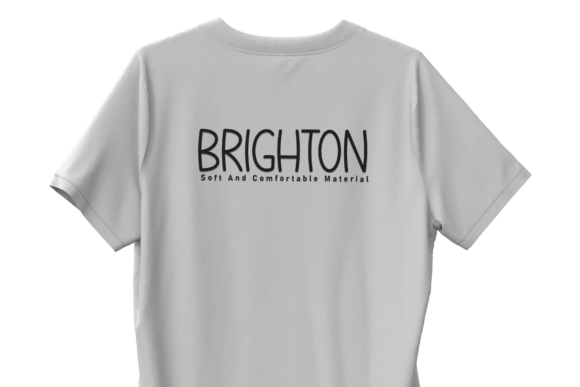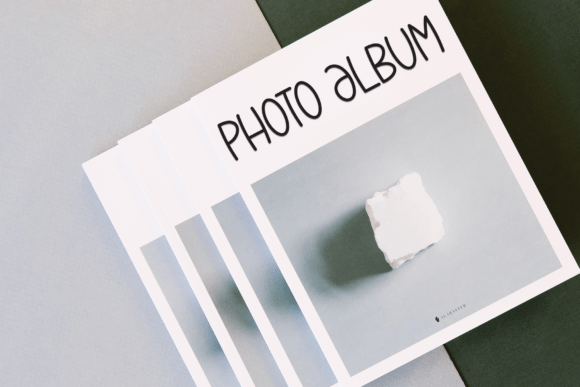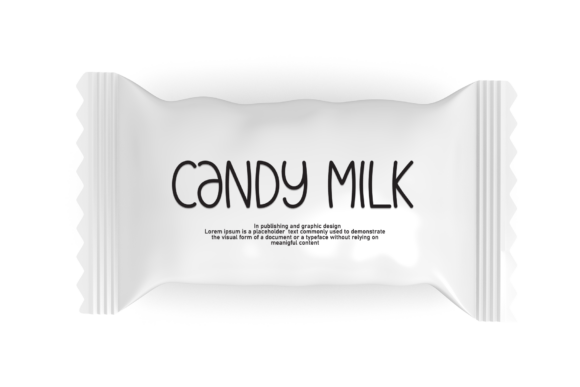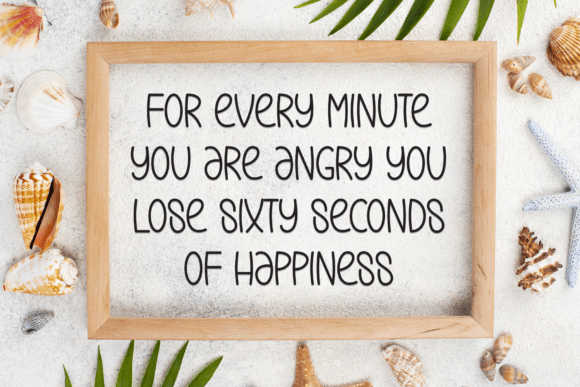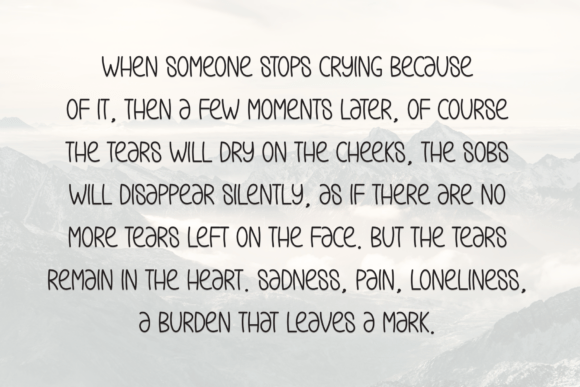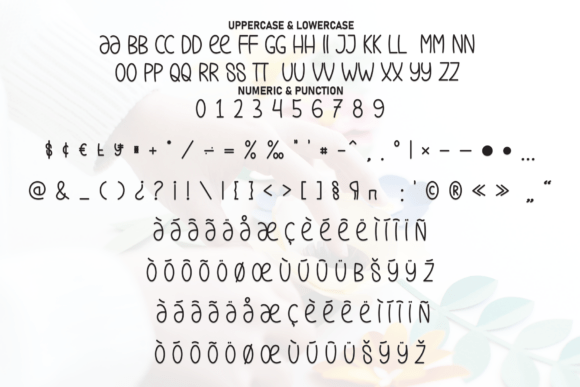
Introduction to Flower Handmade Font
Remember that moment when you sat in front of your computer, staring at a blank canvas, trying to decide on the perfect font for your project? The blank screen seemed daunting, but you knew exactly what you wanted: a font that would capture the essence of joy, whimsy, and romance. That’s when you stumbled upon the enchanting Flower Handmade Font, and your creative world was forever changed.
As designers, we’re always on the lookout for high-quality design resources that can elevate our projects and bring them to life. And that’s exactly what the Flower Handmade Font offers – a beautifully crafted, free download that’s perfect for nuptial invitations, greeting cards, and any design requiring a touch of cheerfulness. With its transparent background and charming, handwritten style, this font is a must-have for any designer looking to add a sprinkle of magic to their work.
Key Features of Flower Handmade Font
- High-quality design for creative projects, ideal for those seeking a unique touch.
- Comes in a transparent background, allowing for seamless integration into various design resources.
- Features a charming, handwritten style, perfect for adding a personal touch to any design project.
Honest Review: Flower Handmade Font
I recently had the opportunity to work with the Flower Handmade Font, and I must say it’s been a delightful experience. This font is perfect for any creative project that requires a touch of elegance and sophistication. ✨
- High-quality design: The font is well-designed and has a clear, easy-to-read structure.
- Transparent background: This feature makes it easy to use the font on any background, without worrying about clutter.
- Wide compatibility: The font works well across various platforms and devices.
- Limited character set: The font only includes a limited set of characters, which may not be suitable for all design needs.
- No customization options: The font is a one-size-fits-all solution, without any options for customization.
Overall, I’m impressed with the Flower Handmade Font. It’s a beautiful and versatile design resource that’s perfect for a wide range of creative projects. While it may have some limitations, it’s definitely worth considering for your next design project.
How to Use Flower Handmade Font
For the best results, pair the Flower Handmade Font with a high contrast background to really make it stand out. You can also experiment with different font sizes and styles to add emphasis and visual interest.
The Flower Handmade Font is perfect for creating invitations, greeting cards, and other paper crafts. It’s also great for designing custom logos, graphics, and other visual elements for your business or personal brand.